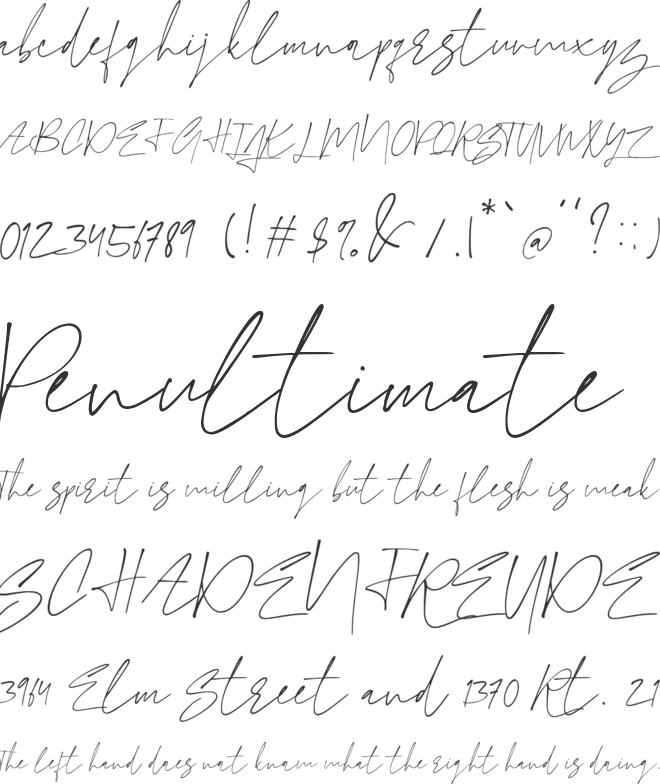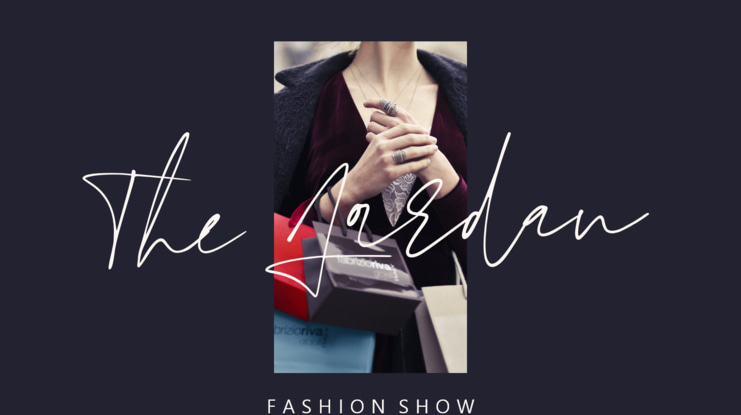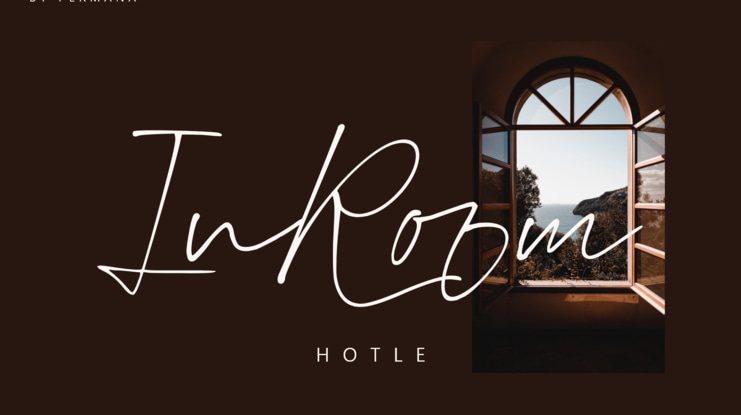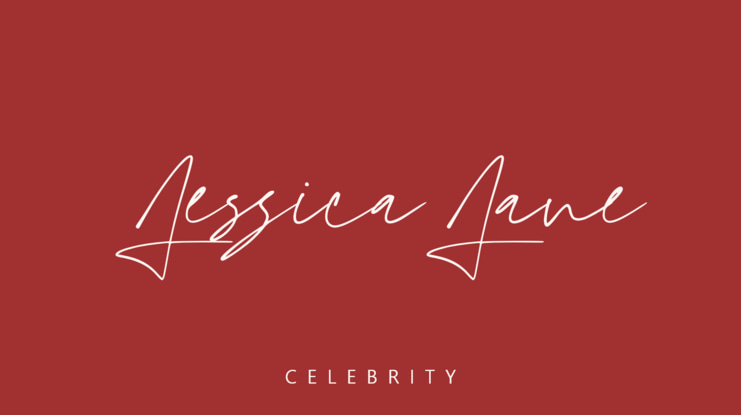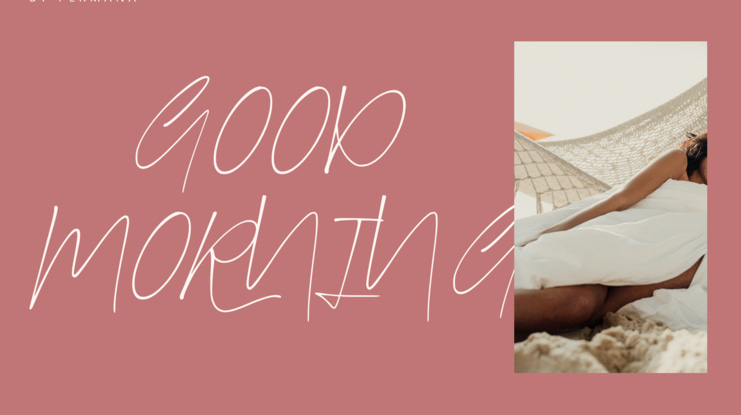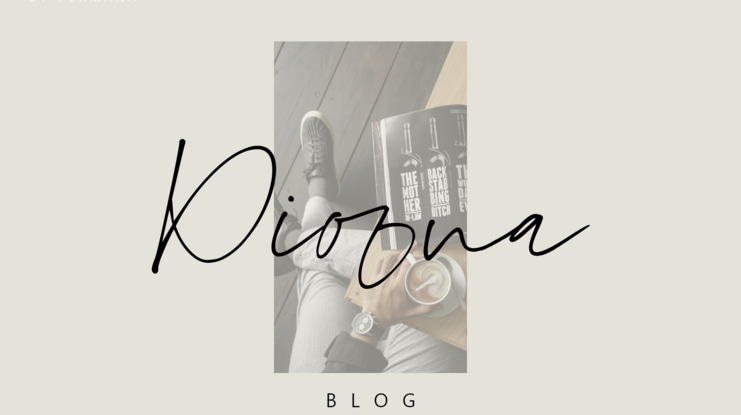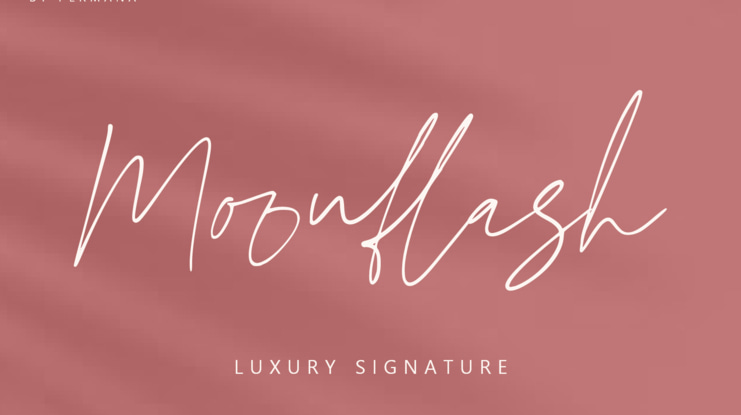
Moonflash Font
Faizal Dian Permana
Introducing the 'Moonflash' script font A new fashionable and super fancy handwritten script font with some extra sexy style. Moonflash font is made to look as close to natural handwritten script as possible with ligatures, and a full set of lowercase alternatives.